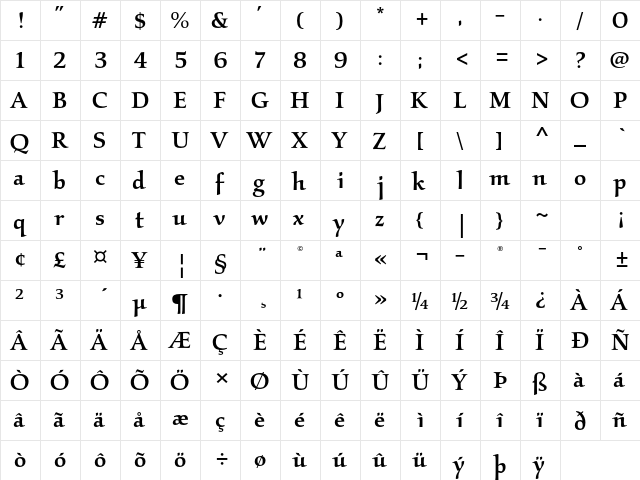
Kallos ITC Std Medium
| Designer | Phill Grimshaw |
Design Context for Kallos ITC Std Typeface
Kallos ITC Std is a composed and adaptable typeface that performs quietly and consistently across a wide range of design contexts.